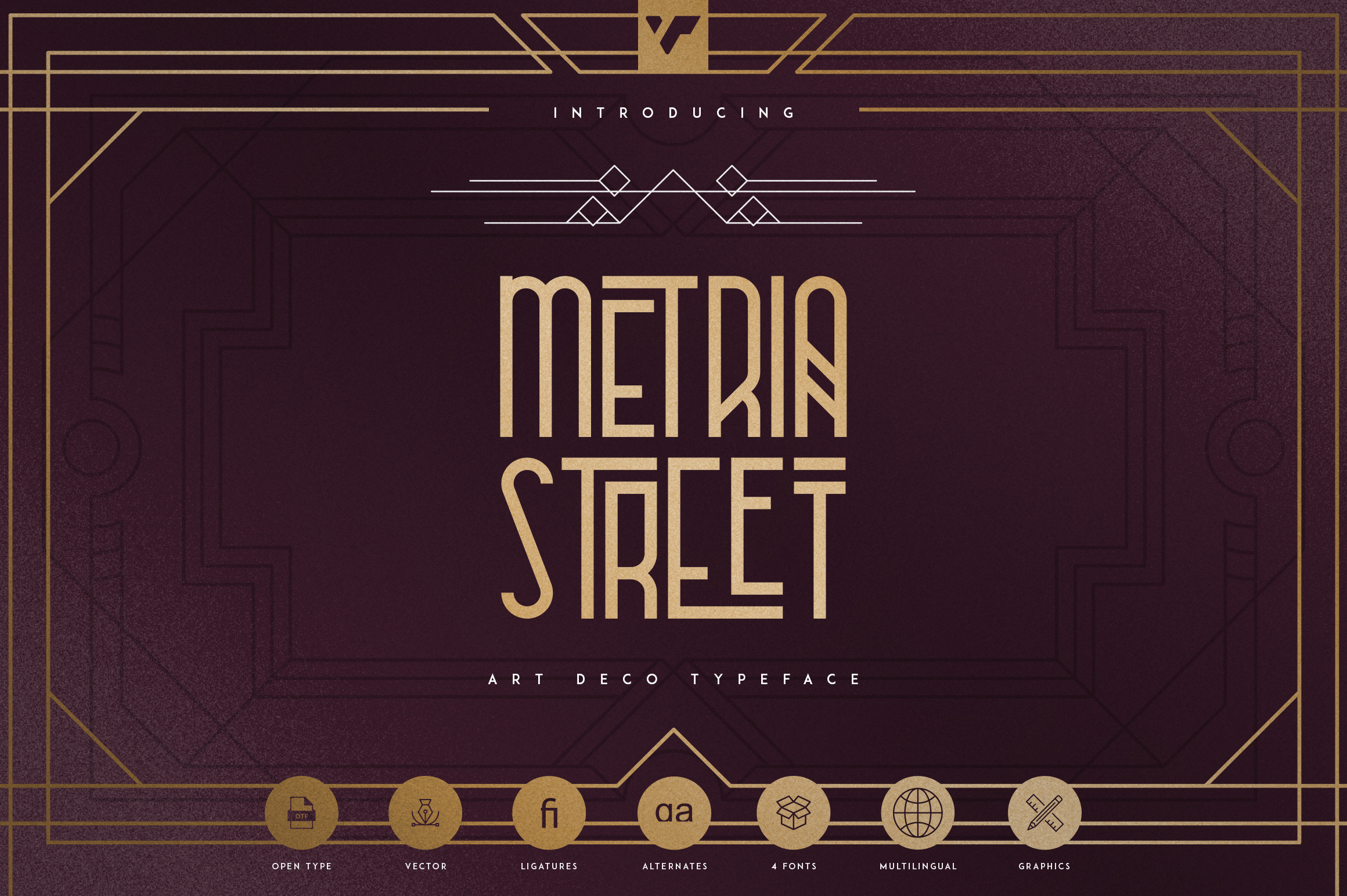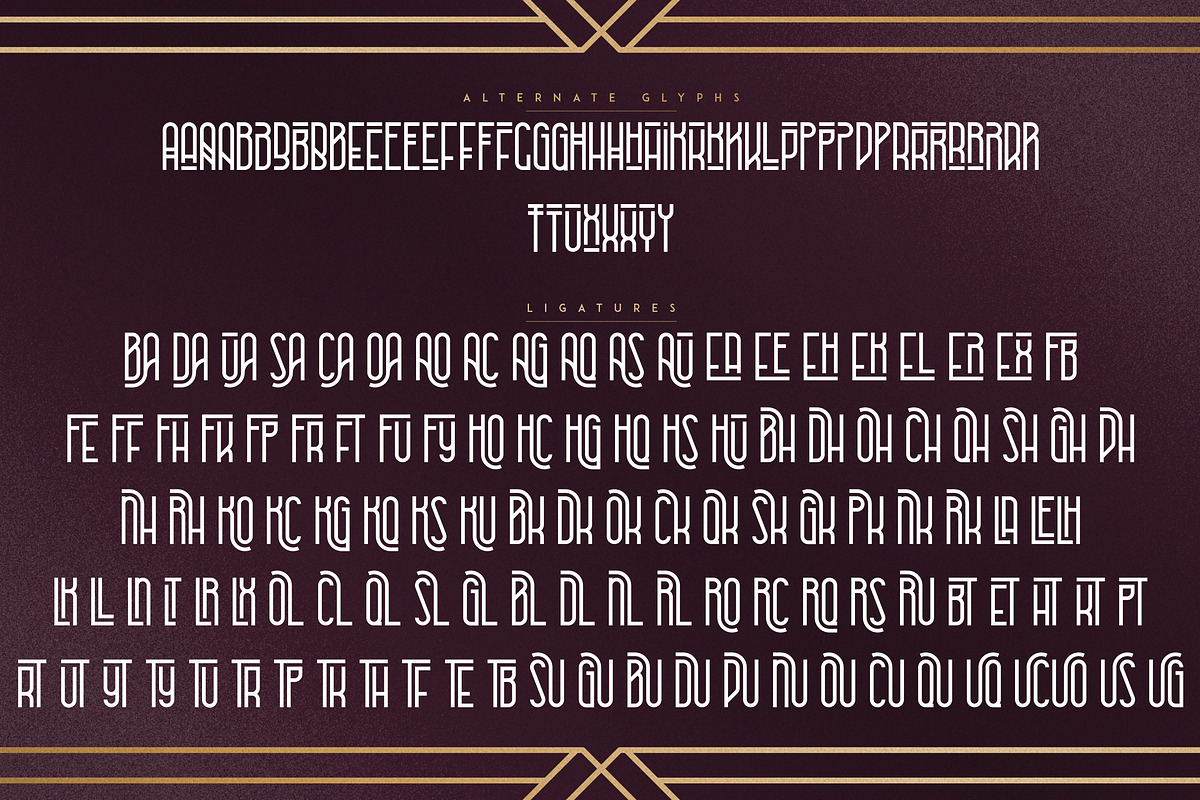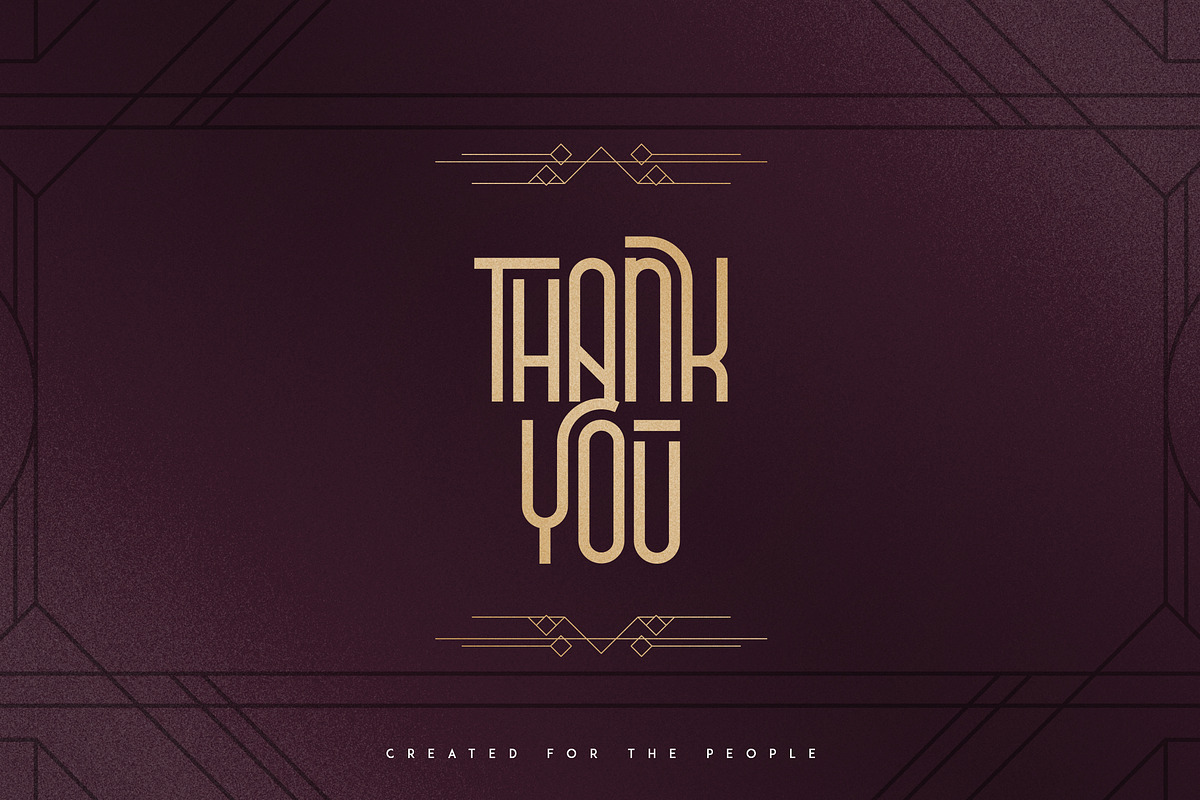
Metria Street - Art Deco Typeface
Introducing Metria Street - Art Deco typeface + Frames and lines
Metria Street is bold, Art Deco typeface with 4 weights, ligature glyphs, alternates, 6 frames, lines, and multilingual support. It's a very versatile font that works great in large and small sizes.
Metria Street is perfect for branding projects, home-ware designs, product packaging, magazine headers - or simply as a stylish text overlay to any background image.